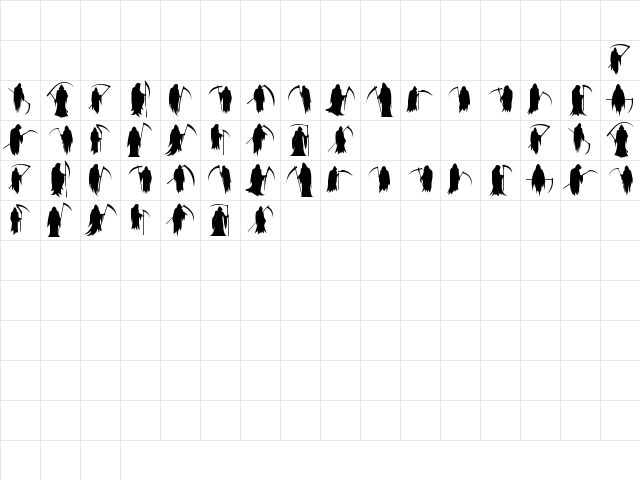
Complete Grim Reaper La Parca Regular glyph index. Displaying only characters natively supported by Grim Reaper La Parca Regular font.
Grim Reaper La Parca is a composed and adaptable typeface that performs quietly and consistently across a wide range of design contexts.